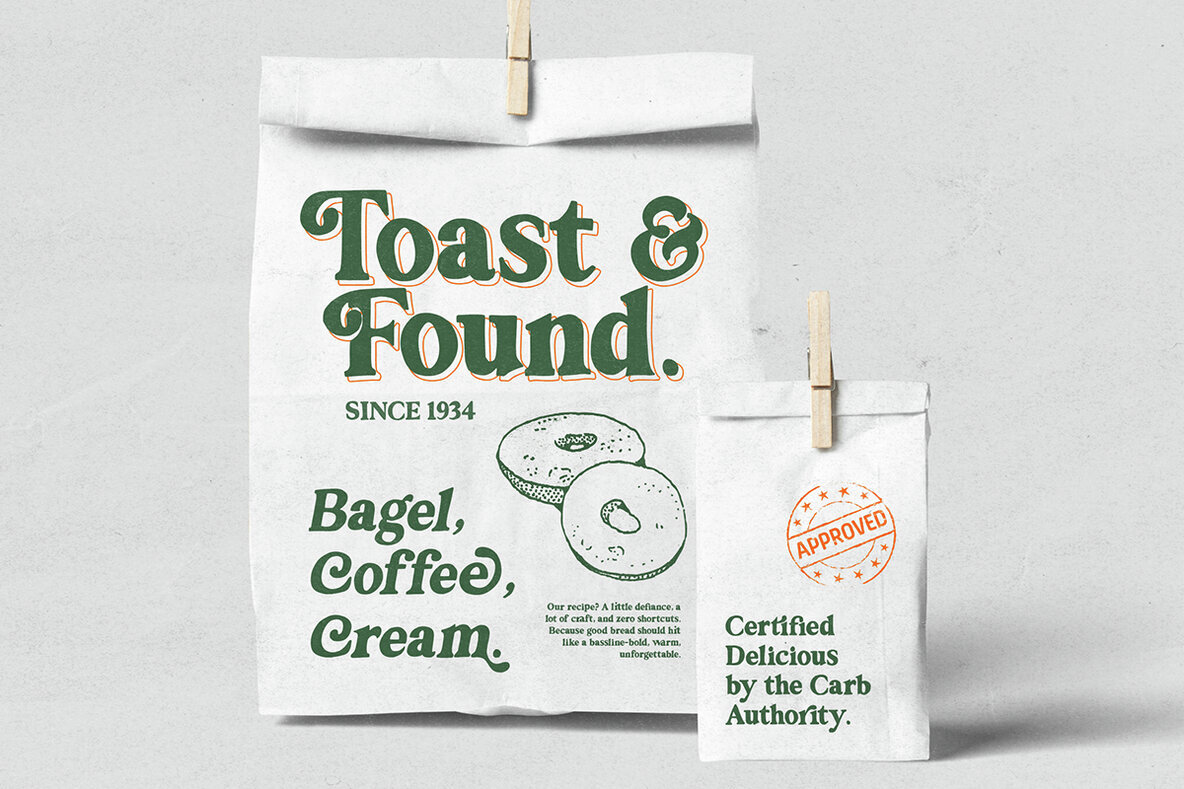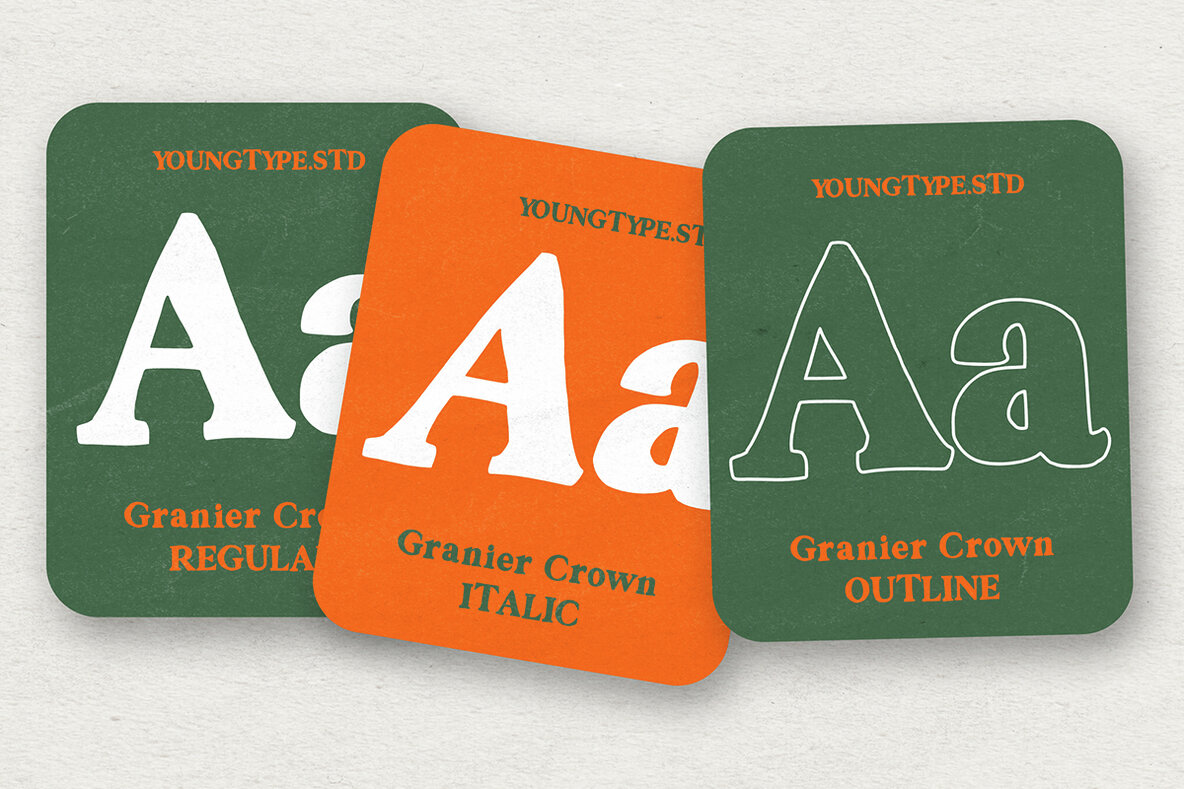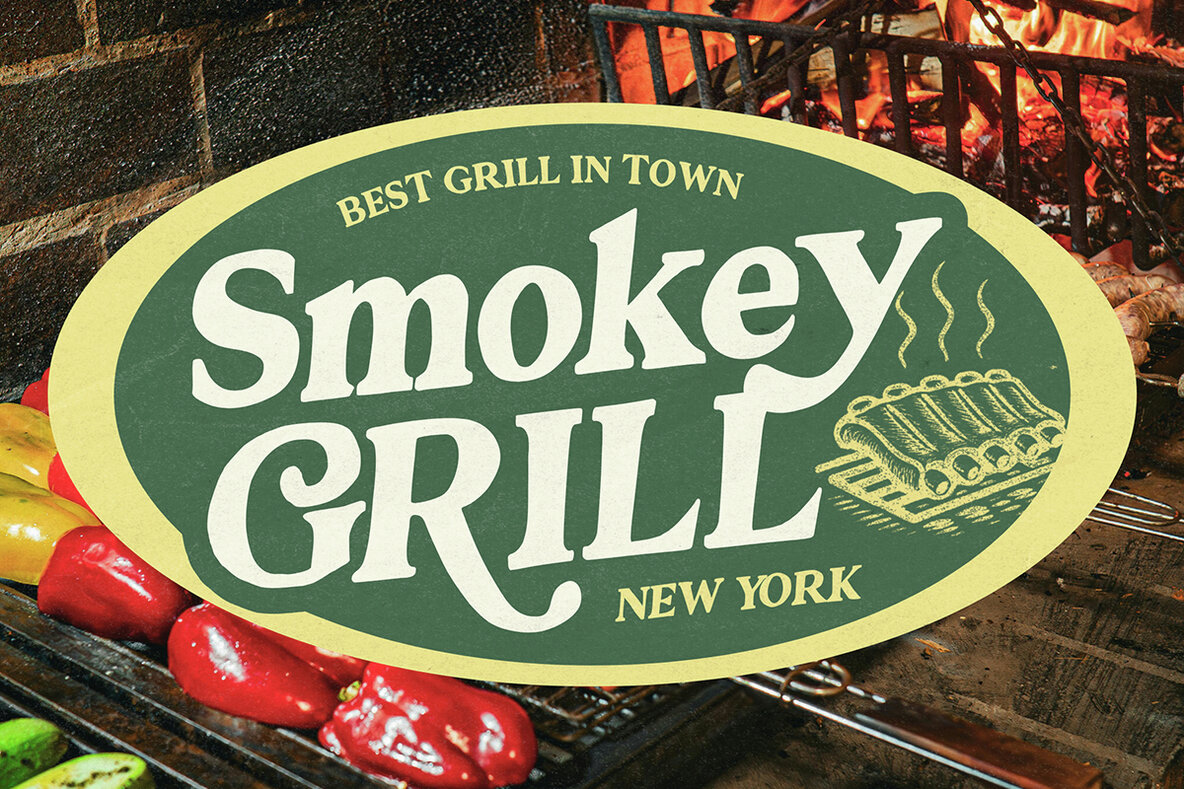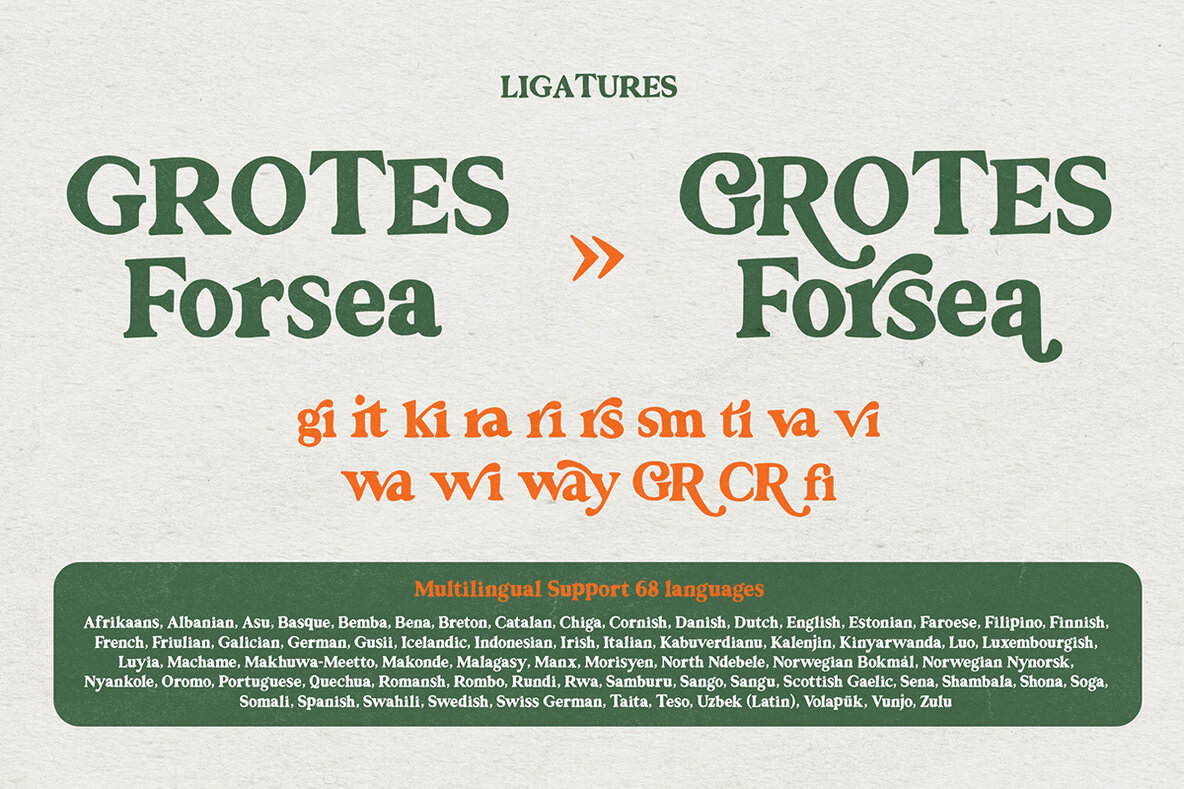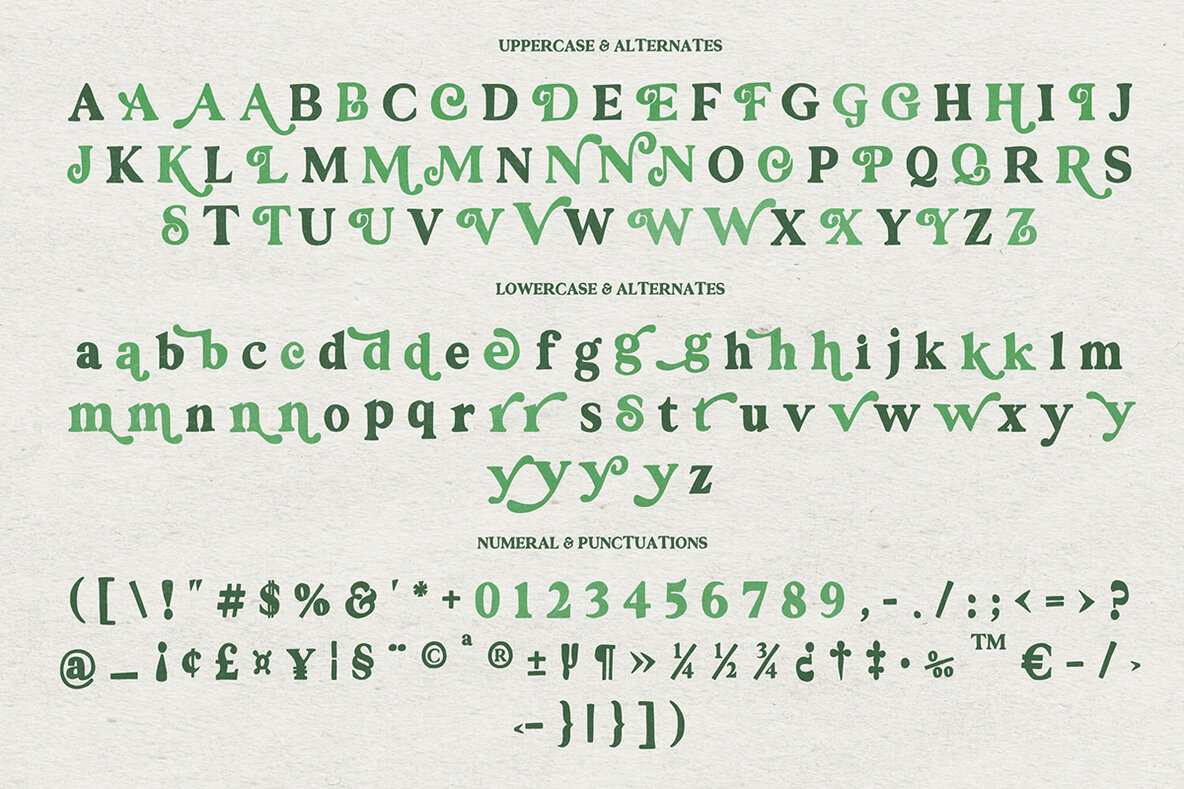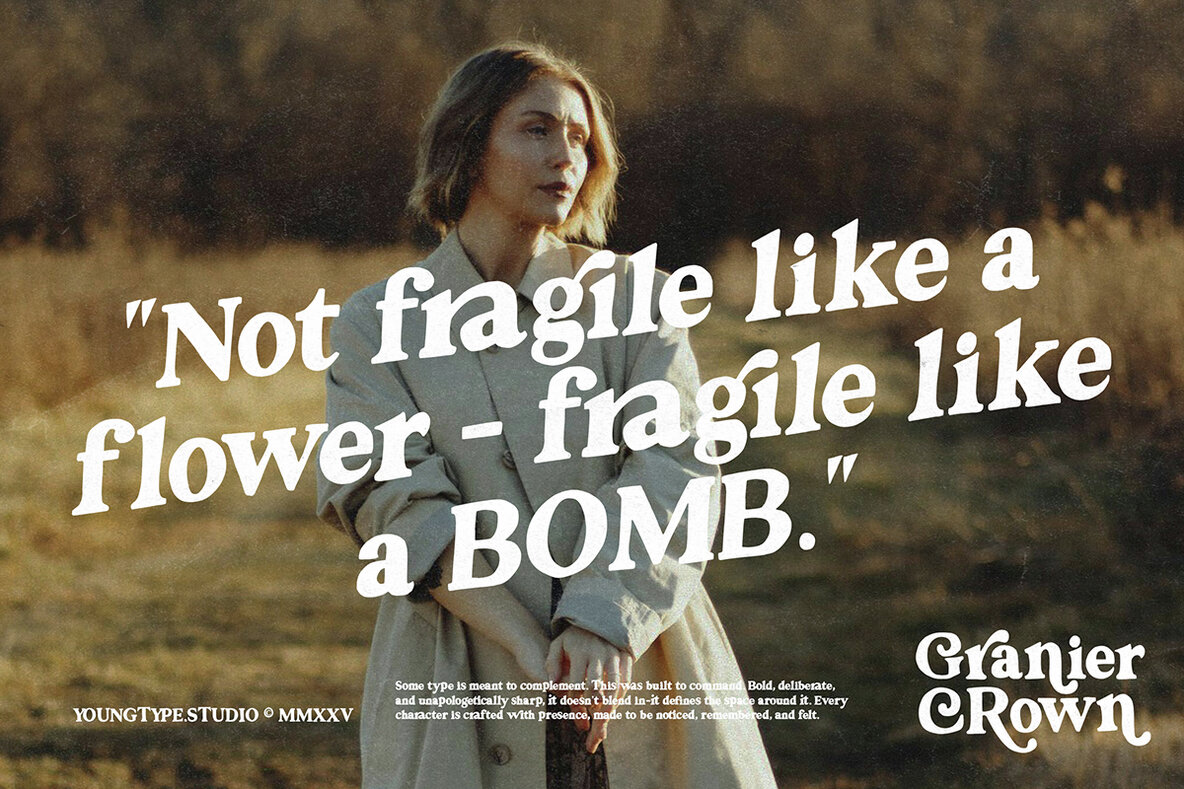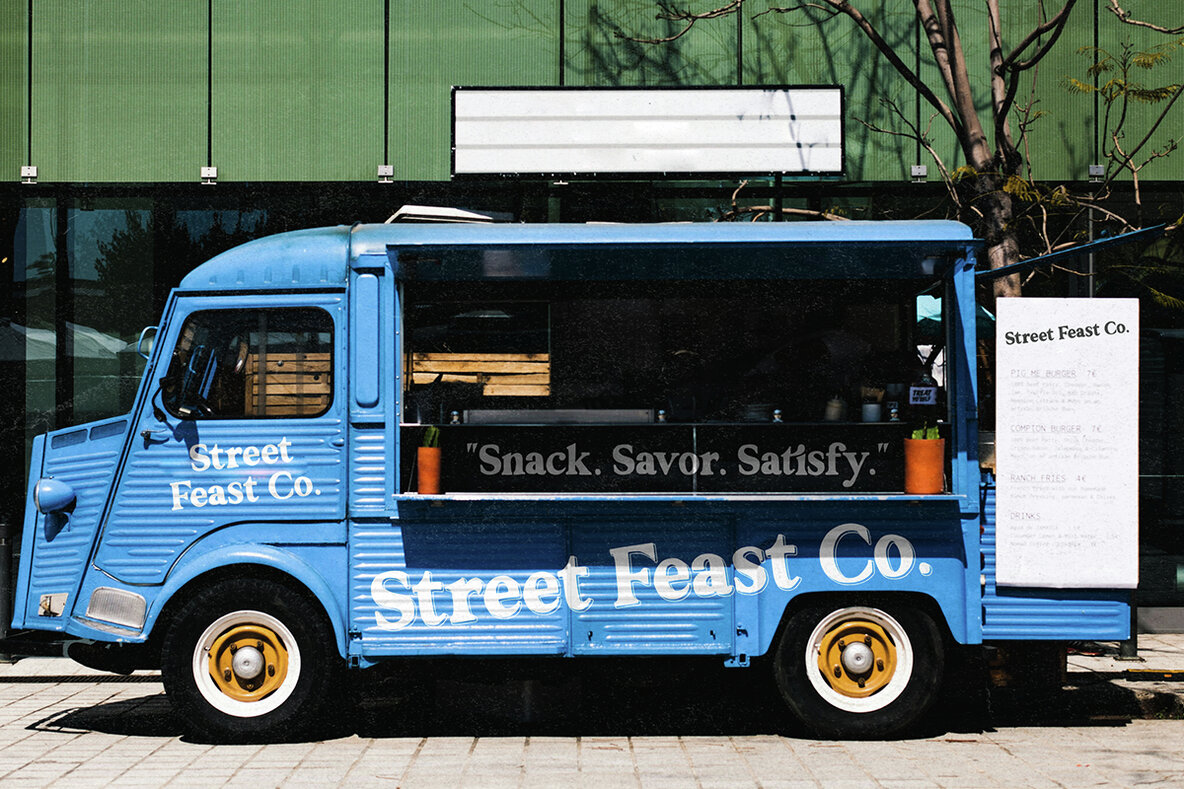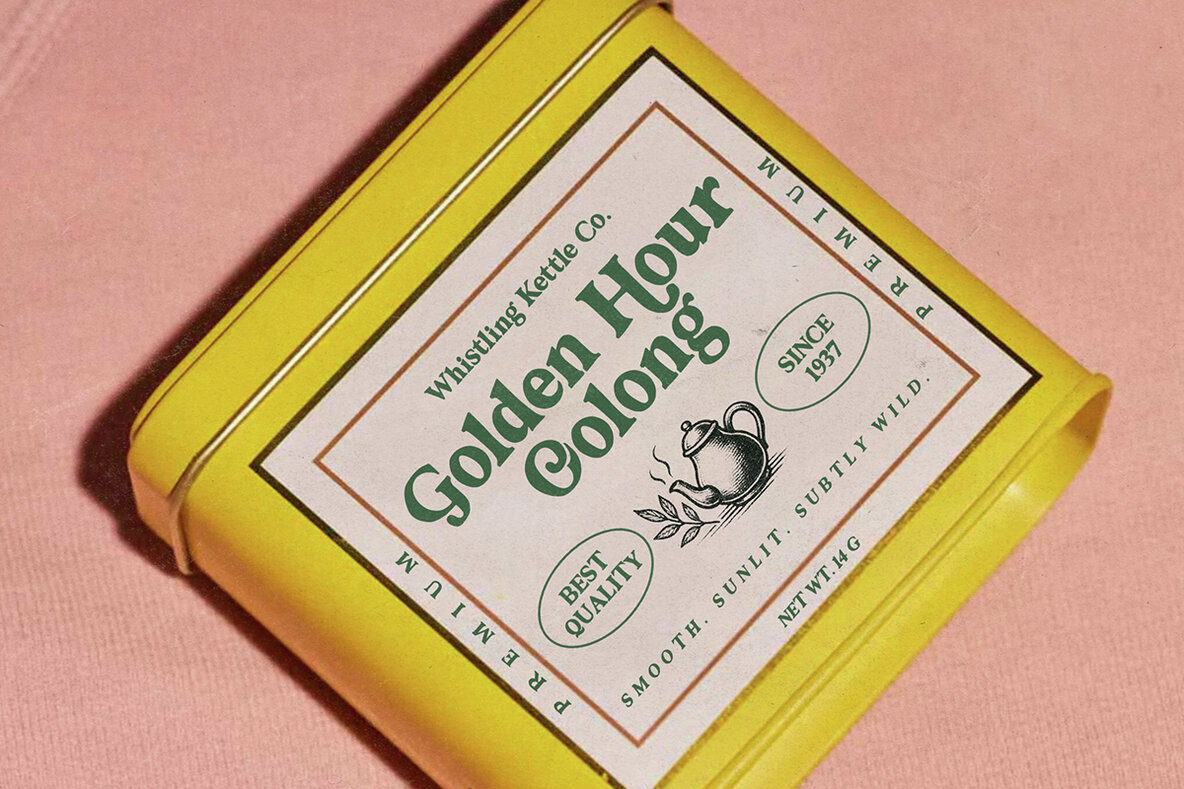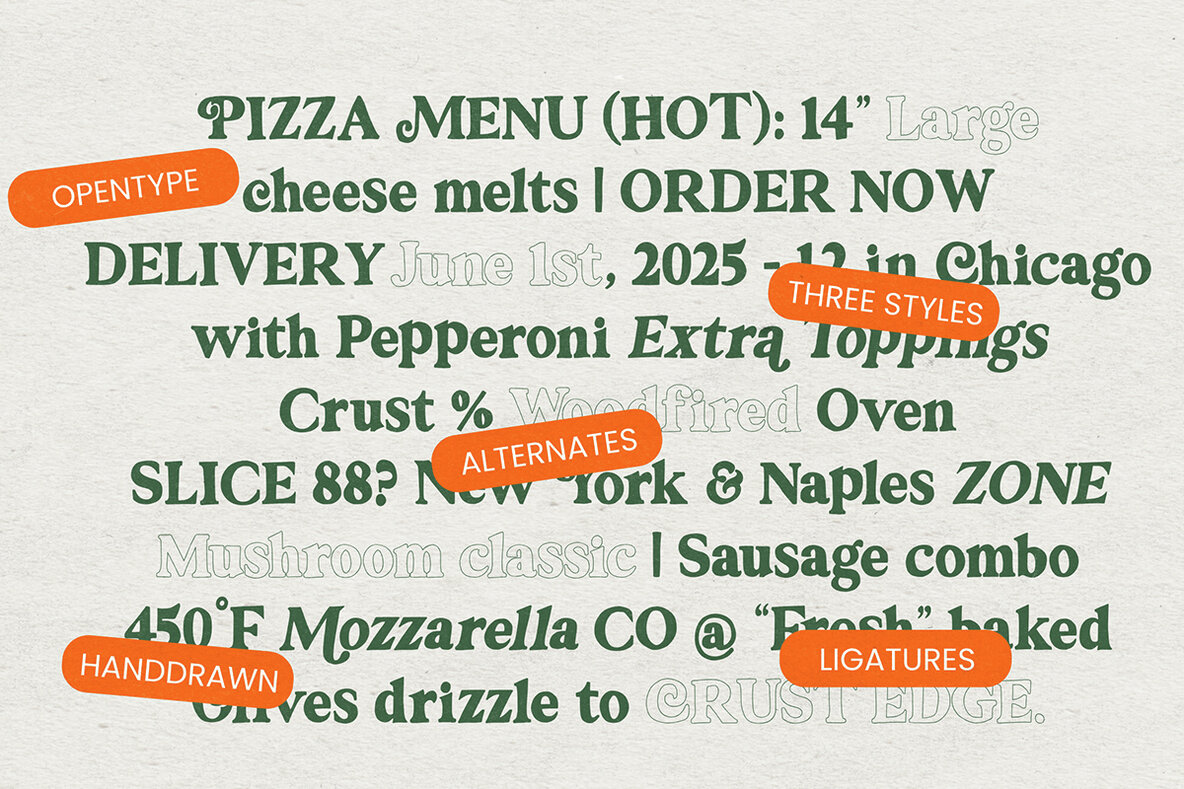
Granier Crown Font
Granier Crown is an expressive hand brush font crafted using brush and ink. This typeface features three distinct styles: Regular, Italic, and Outline. Perfectly suited for bold watercolor designs or handwritten styles, it enhances projects like blog titles, posters, wedding elements, t-shirts, clothing, book covers, business cards, greeting cards, branding, and merchandise.Granier Crown: A Brush Font for Bold Designs